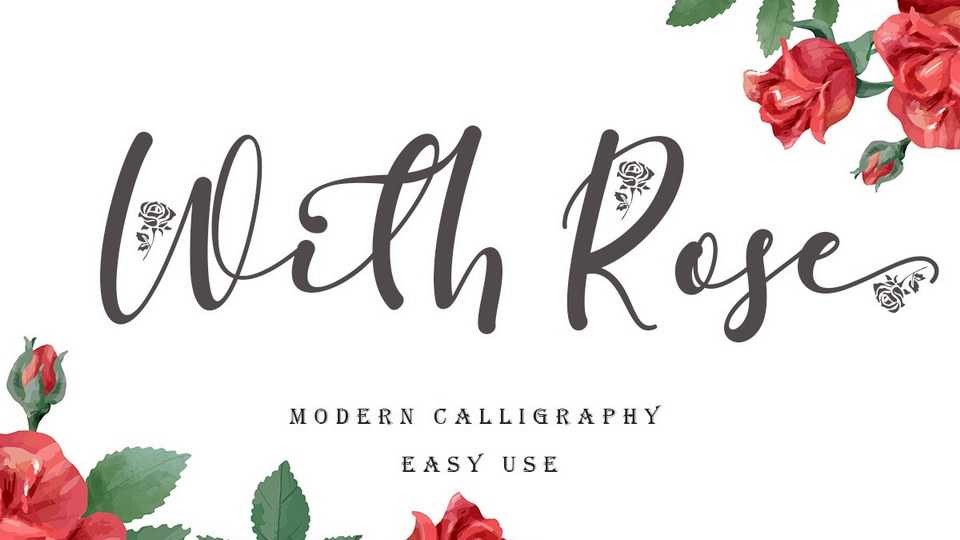
Download With Rose is a unique, beautiful modern calligraphy font. With Rose font is perfect for weddings, valentine’s, promotions, business, social media, logos, branding, banners, typography, prints, posters, and more.